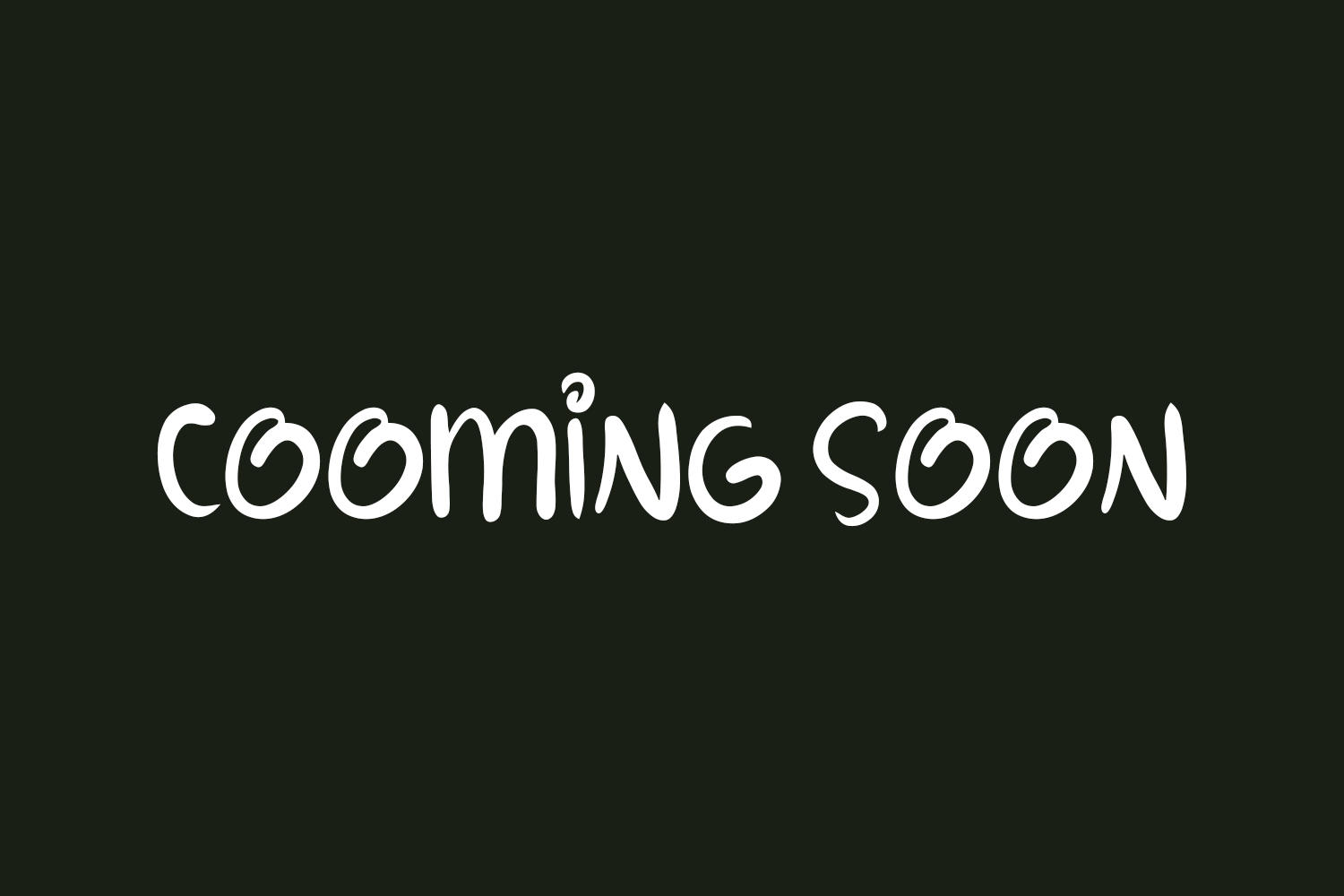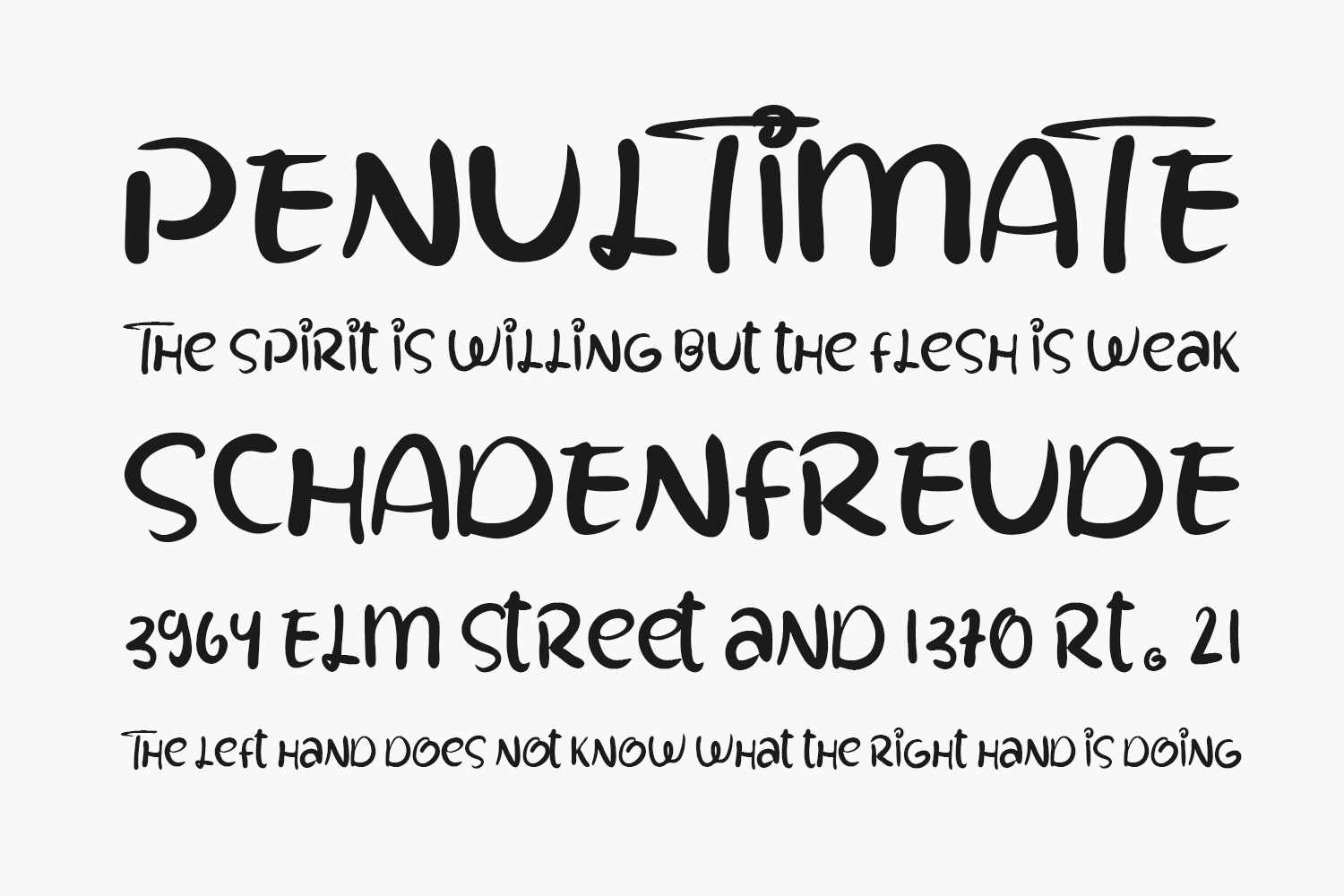
Cooming Soon Free Font is a cute, paint brushed and neat handwritten font. Add this font to your most creative ideas, and notice how it makes them stand out. Cooming Soon Free Font was designed by Share Font and is free for personal use only. Please purchase the full version for commercial use.